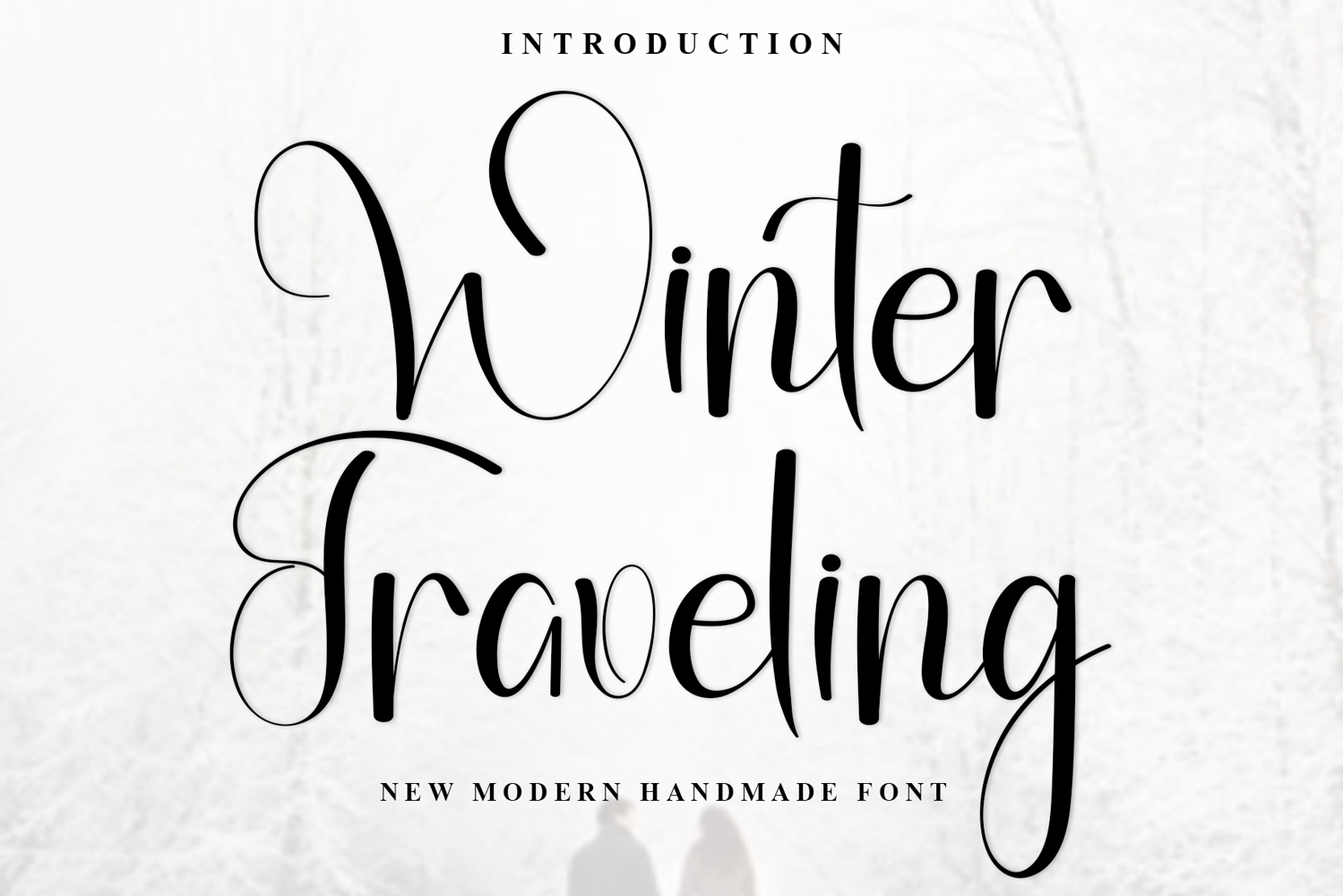
Winter Traveling
Winter Traveling is a beautiful and eye-catching font designed with a soft, unique touch. Its distinctive strokes give it a special character, making it meaningful and versatile for future use. With various characters, it’s perfect for design projects, crafts, and other creative works.